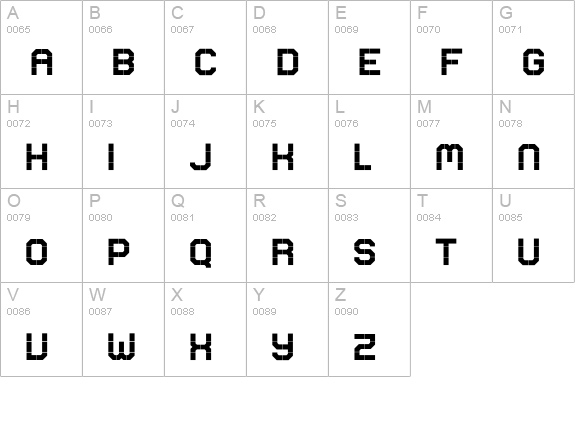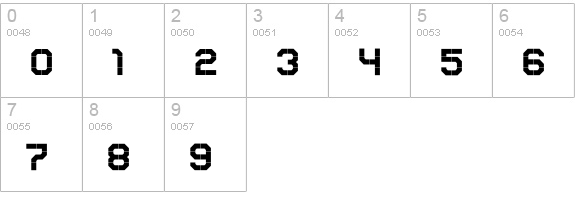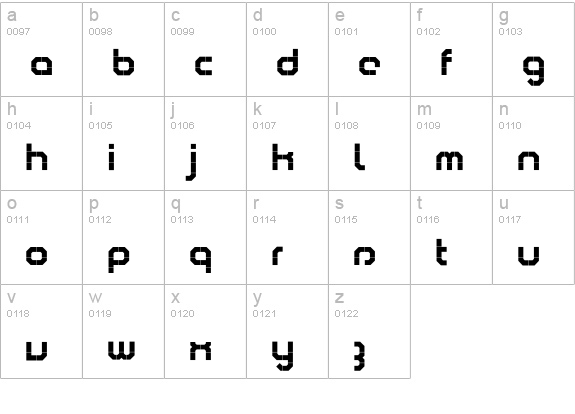
Comsat-Navy-Fat Font Details
Comsat-Navy-Fat font is a bold and eye-catching typeface that exudes a sense of strength and confidence. With its thick strokes and commanding presence, this font is perfect for making a statement in headlines, titles, or logos. The unique design of Comsat-Navy-Fat font sets it apart from other fonts, making it a standout choice for projects that demand attention. Best of all, Comsat-Navy-Fat font is completely free to download at FontsMarket.com. By offering this font for free, designers and creatives have easy access to a powerful tool that can elevate their work to the next level. Whether you're working on a poster, website, or branding project, Comsat-Navy-Fat font is sure to make a lasting impression. Download it today and unleash the bold potential of this striking typeface.